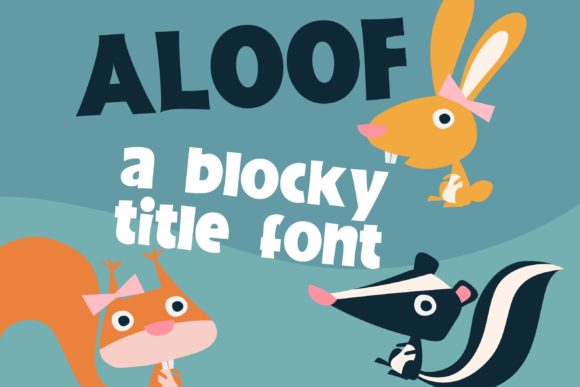
Introducing Aloof Font, the Ultimate Display Font for Kids Shirts!
Get ready to embark on an enchanting journey with Aloof Font, a captivating display font that will transform your kids' shirts into masterpieces. Crafted by the talented team at Illustration Ink, Aloof stands out with its bold, thick letters that exude a playful yet sophisticated charm.
Designed to ignite creativity and imagination, Aloof Font is the perfect choice for parents, designers, and anyone seeking to create unique and eye-catching designs for kids' apparel. Its versatility extends beyond shirts, making it ideal for invitations, posters, packaging, and more.
With Aloof Font, you'll effortlessly create designs that will make your little ones beam with joy and leave an unforgettable impression on all who behold them. Let your creativity soar and unleash the boundless possibilities that await you with Aloof Font.